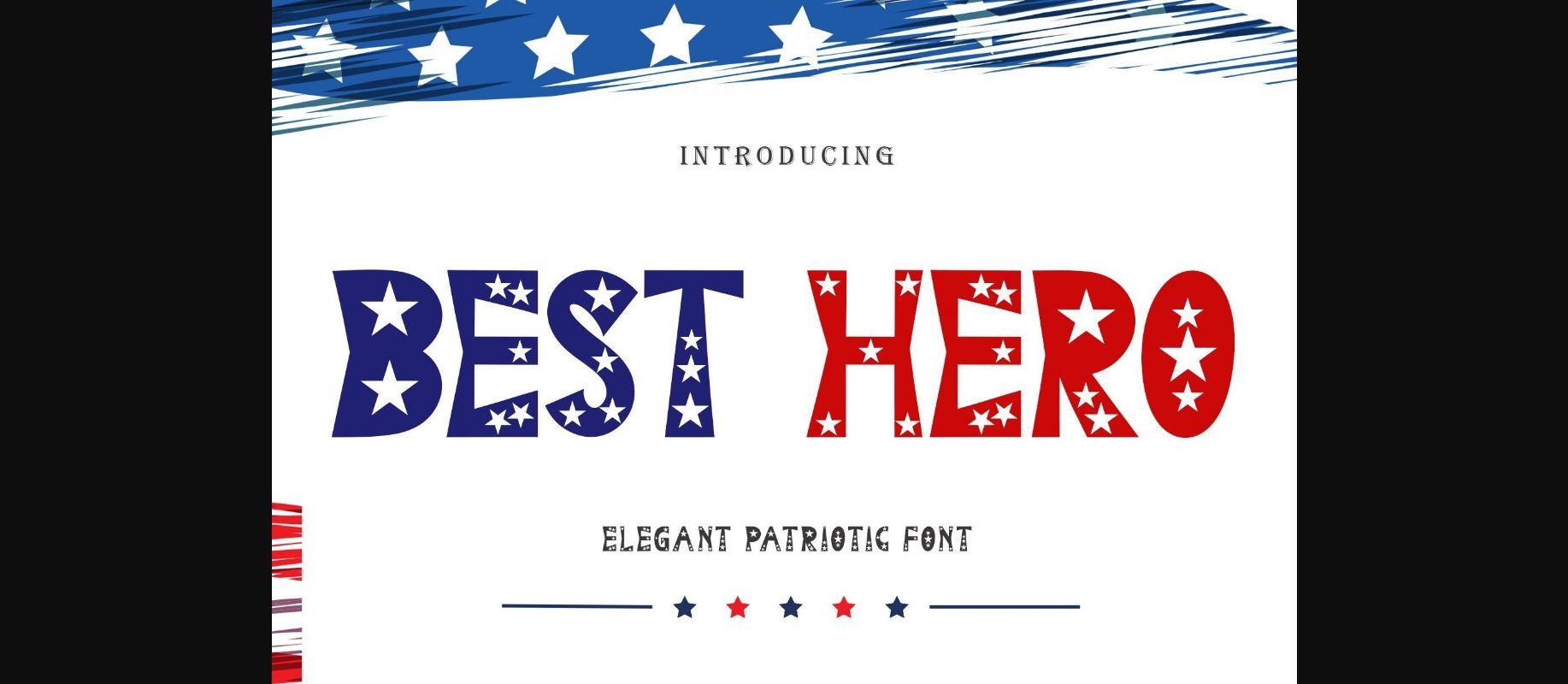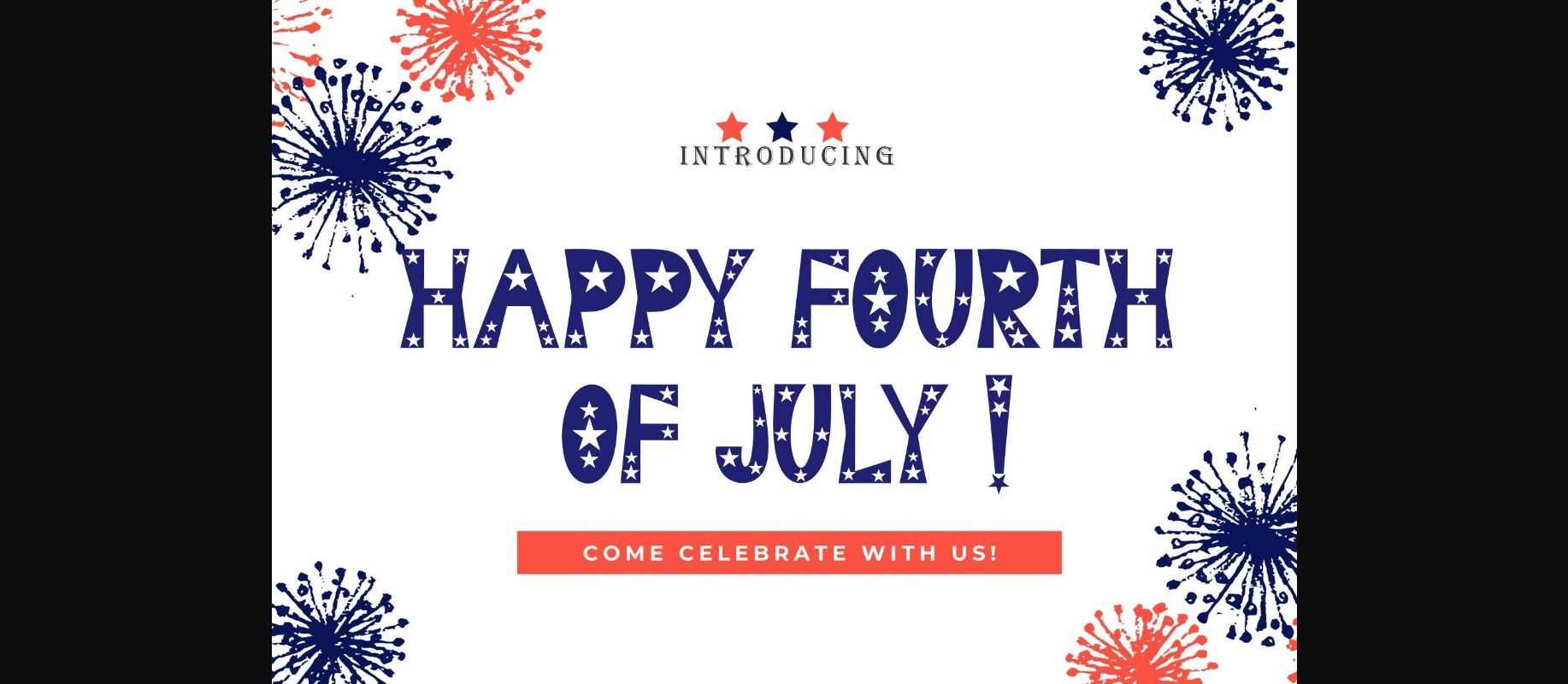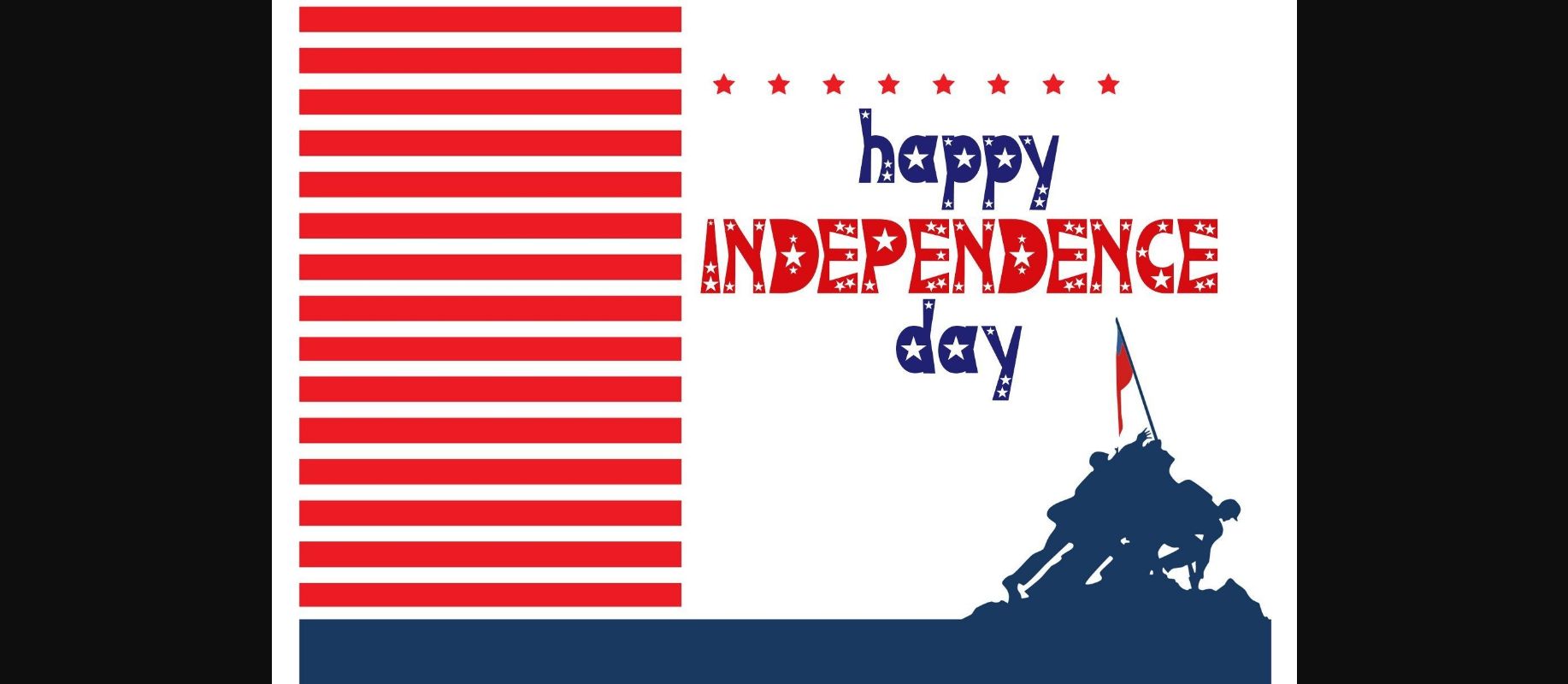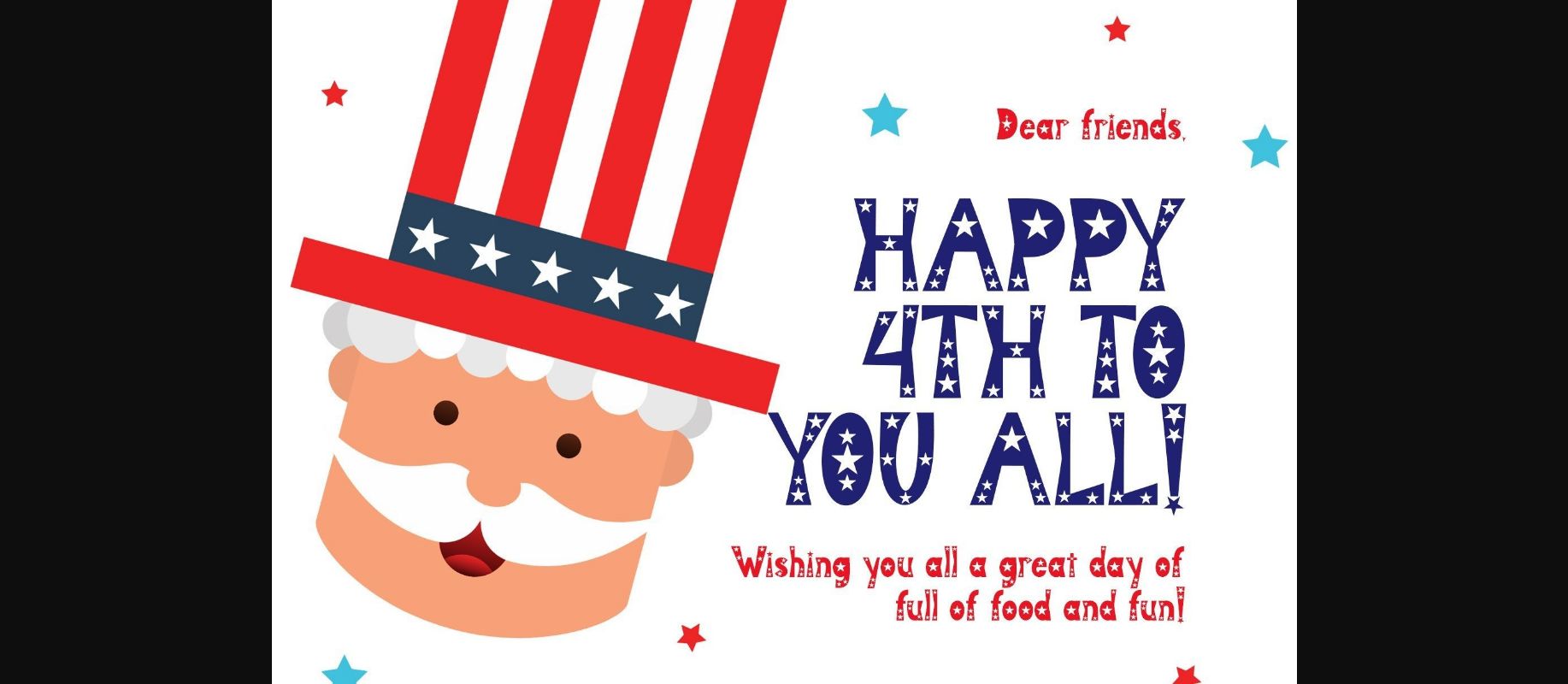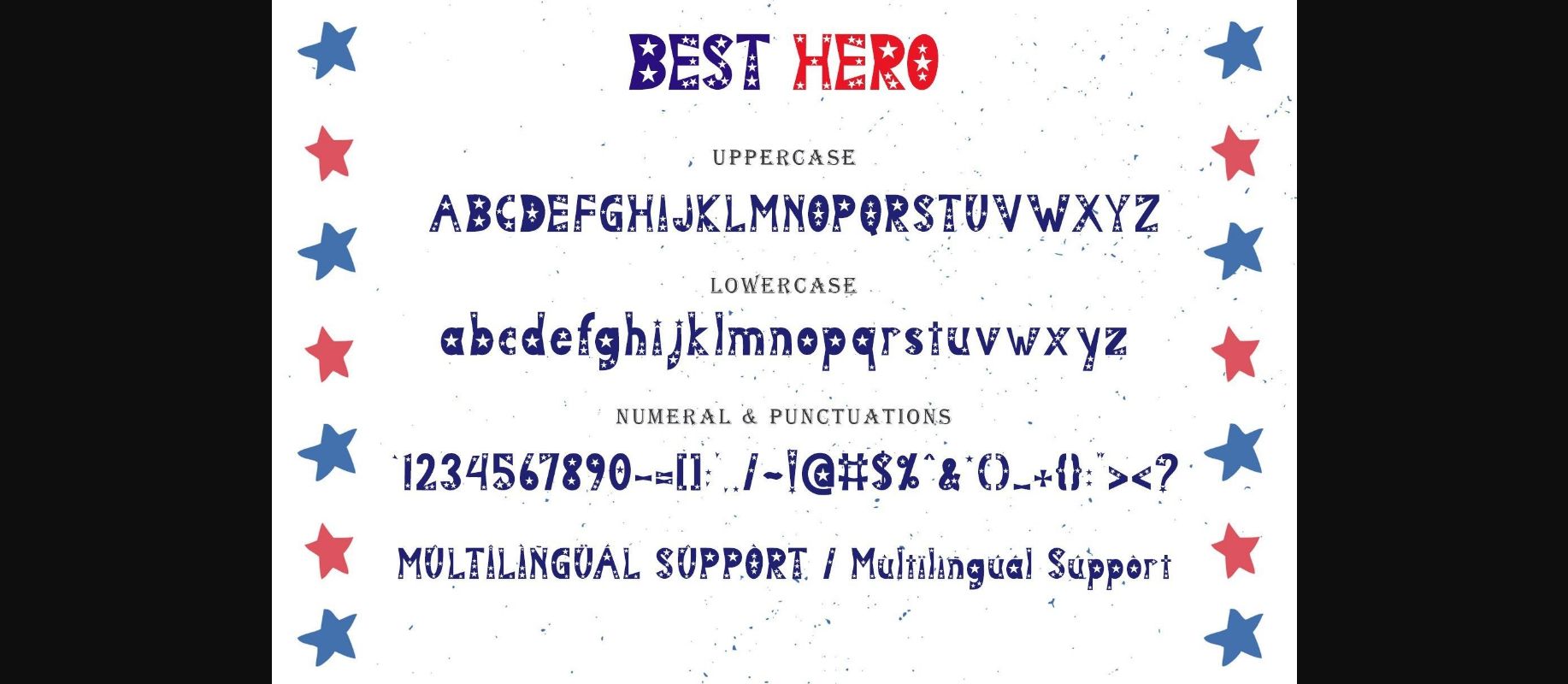
Best Hero Font
About Best Hero Font
“Best Hero” is an elegant and unique font with star decoration on each letter. This font is equipped with uppercase, lowercase, numerals, punctuations, multilingual support. Very suitable for the nuances of struggle, 4th of july, teacher, father’s day, graduation, film titles, magazines, book titles, promotions, banners, branding, stickers and others.